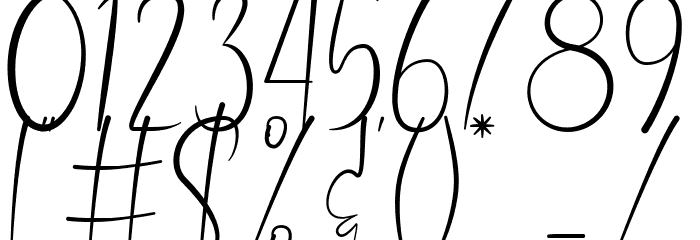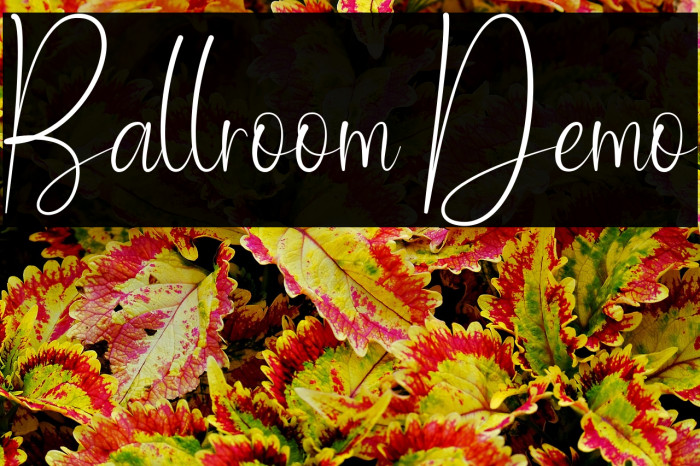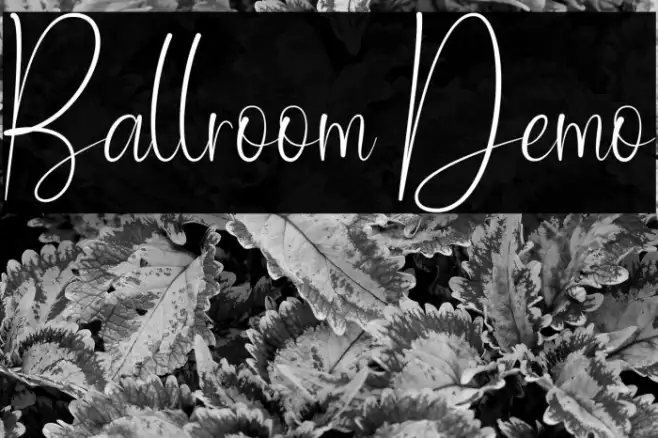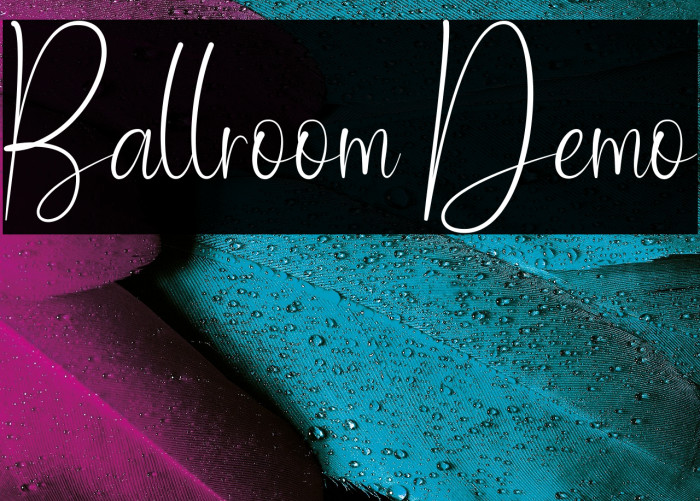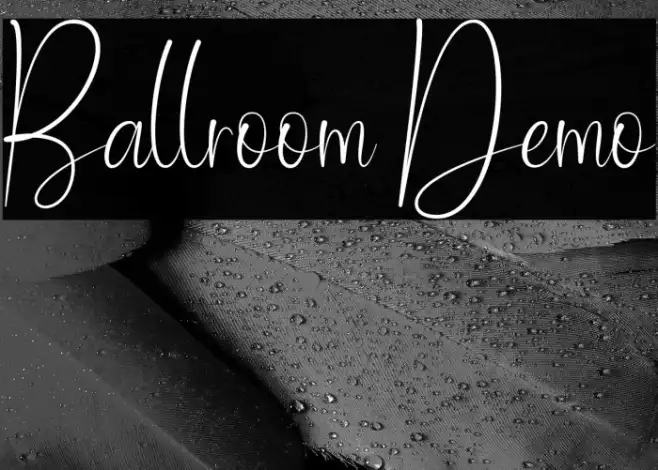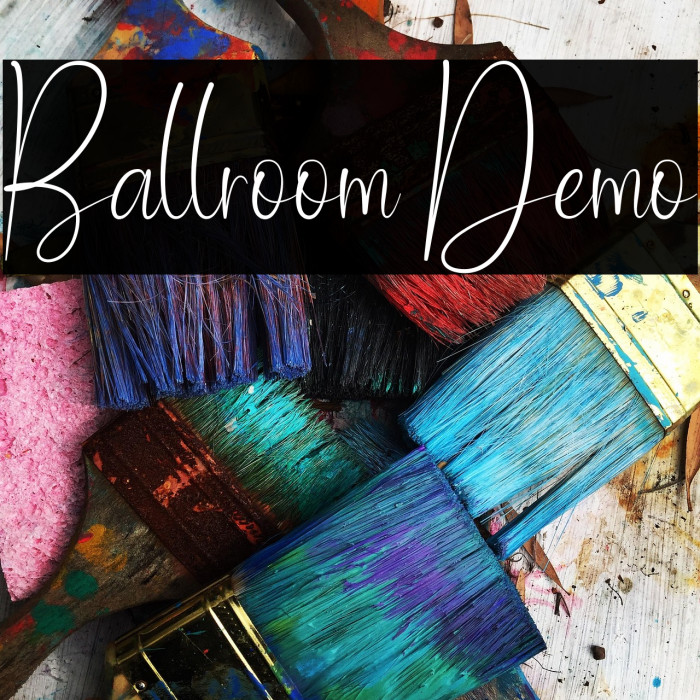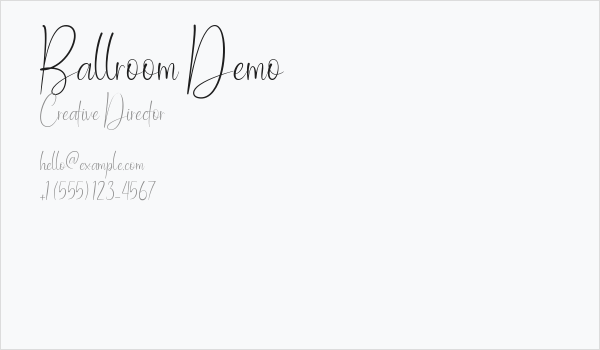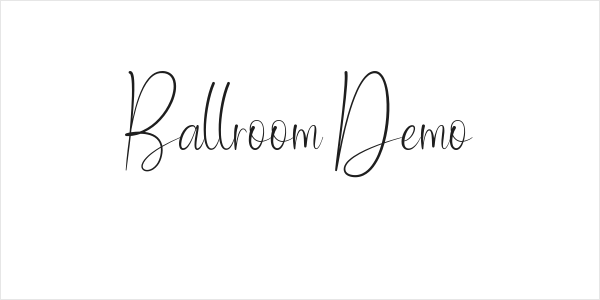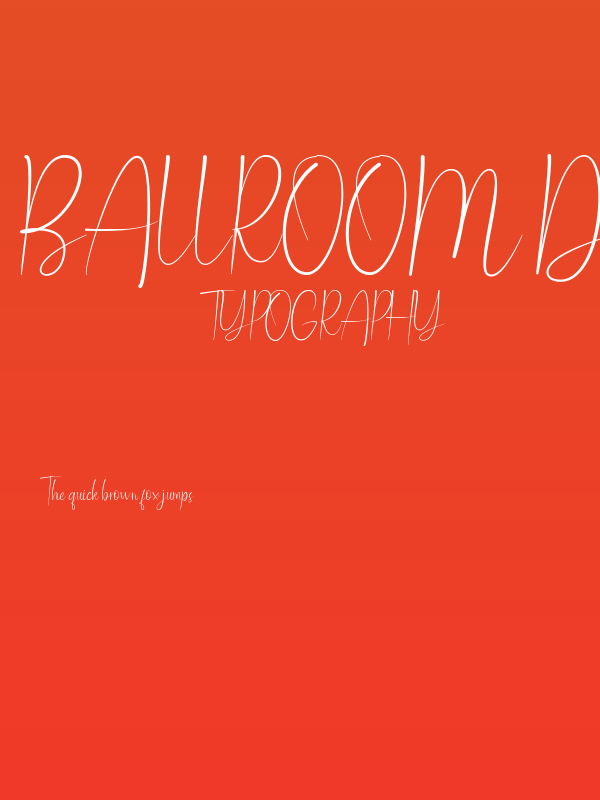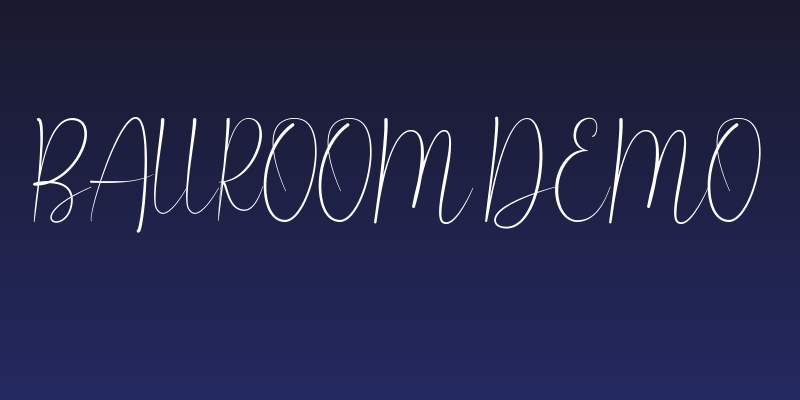
Ballroom Demo Font
Ballroom Demo Description
This font features an elegant and flowing script style, characterized by its thin, elongated strokes and graceful curves. The uppercase letters exhibit a sophisticated flair, with sweeping lines that suggest movement and fluidity. The lowercase letters maintain a consistent style, with some characters featuring distinctive loops and swashes that enhance the font's decorative appeal. The numerals are designed with a similar elegance, maintaining the thin stroke weight and adding a touch of whimsy with their unique forms. Special characters are integrated seamlessly, complementing the overall aesthetic. This font is ideal for projects that require a touch of sophistication and elegance, such as wedding invitations, formal event branding, or high-end product packaging.
| Proposed Projects | Wedding invitations, formal event branding, high-end product packaging. |